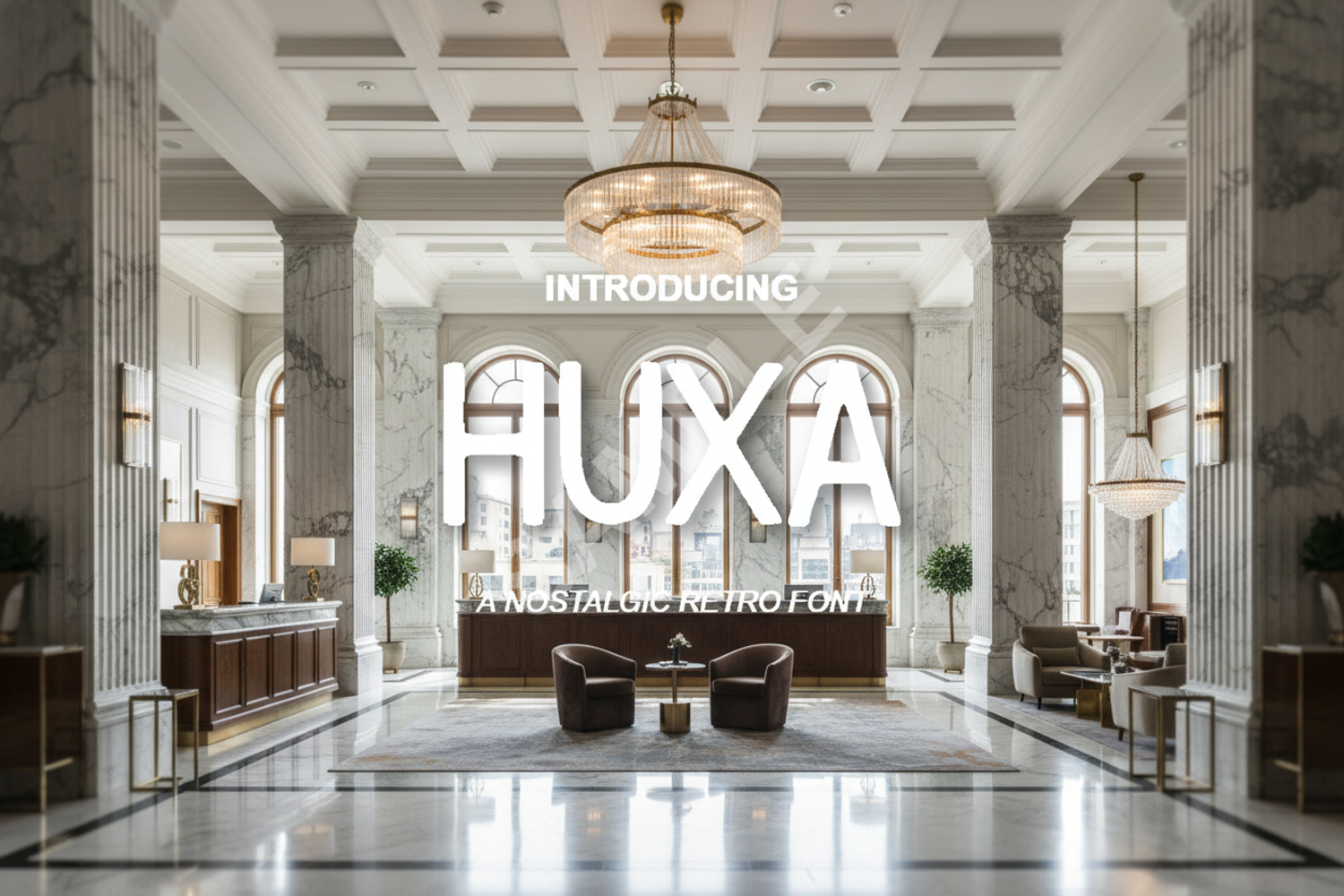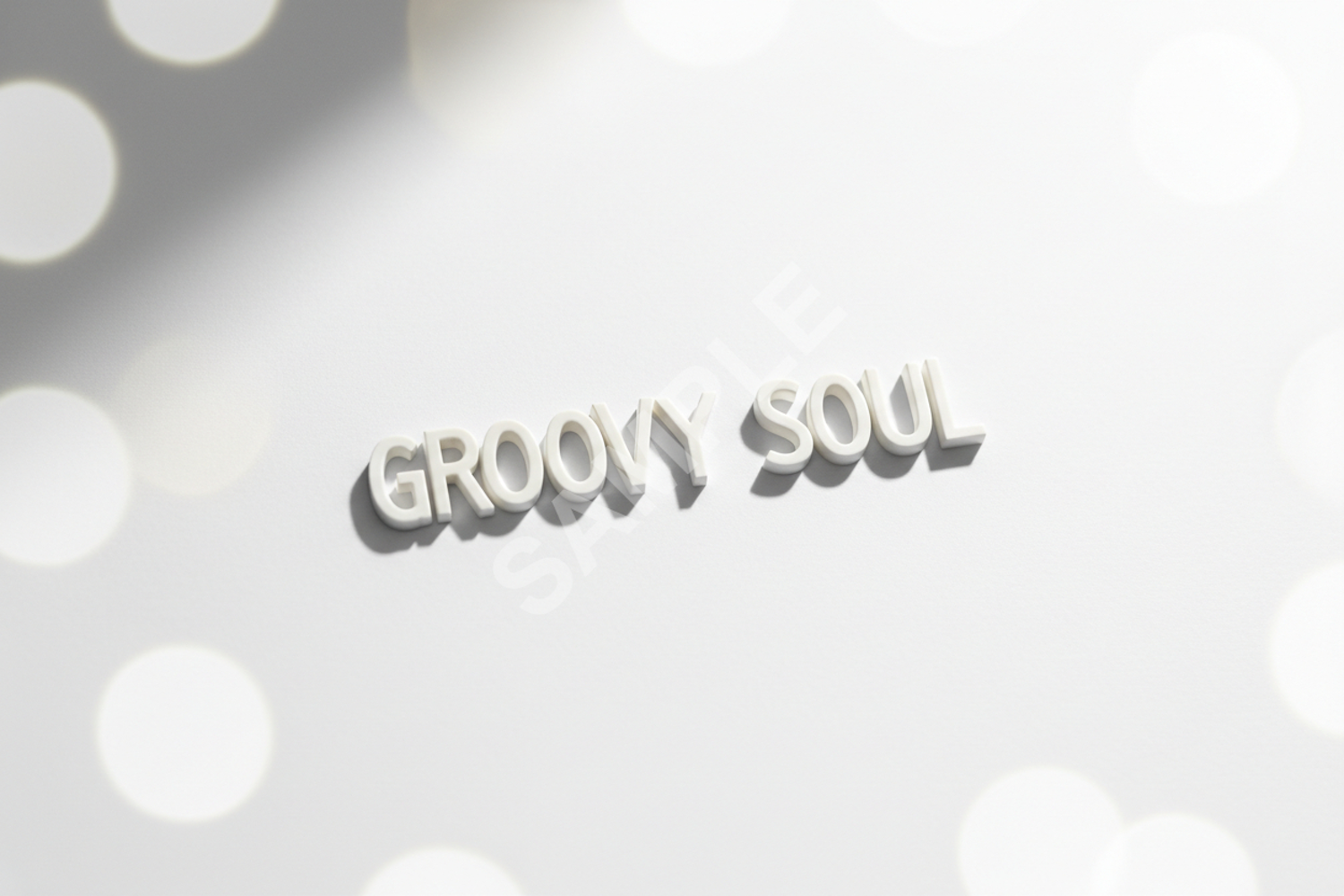
Huxa - Modern Geometric Sans Serif
Huxa
Meet Huxa, a sophisticated and versatile geometric sans serif font crafted for designers who demand precision and style. With its clean lines and balanced proportions, Huxa offers a timeless aesthetic that works seamlessly across digital and print mediums. Whether you are building a brand from the ground up or looking for a reliable display face, Huxa provides the premium quality necessary for professional results.
- Corporate Branding and Identity Systems
- Minimalist Logo Design
- High-end Editorial and Magazine Layouts
- Modern Website Headers and User Interfaces
- Social Media Graphics and Professional Advertising